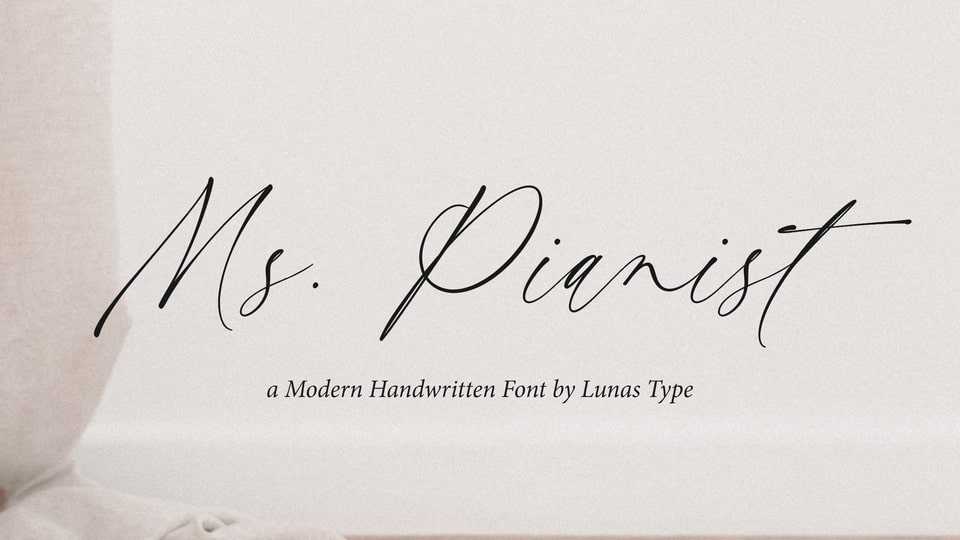
Download Ms. Pianist font, an elegant signature typeface with natural flow and feminine style. Each letter is deliberately imperfect to make Ms. Pianist font look more natural and charming.
Designer: Lunas Type